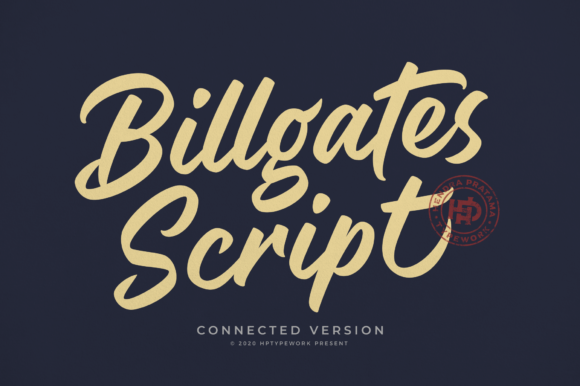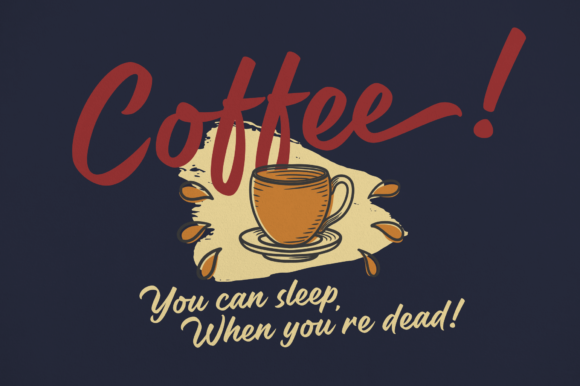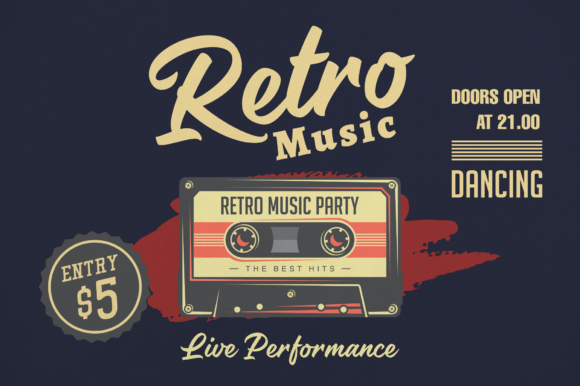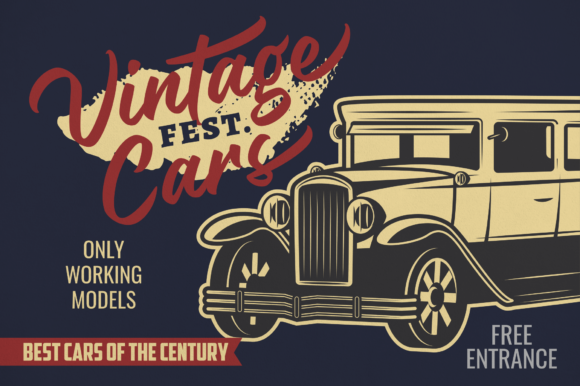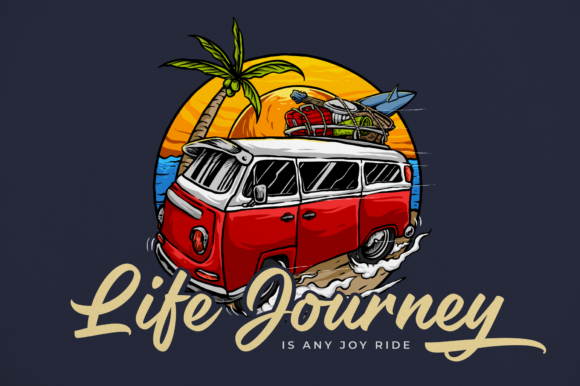
Billgates Script Font
About Billgates Script Font
Billgates Script is a brushed font, featuring a vintage and elegant style. Flowing and unique, this font is the perfect choice for each of your creative ideas! It is PUA encoded which means you can access all of the glyphs and swashes with ease!